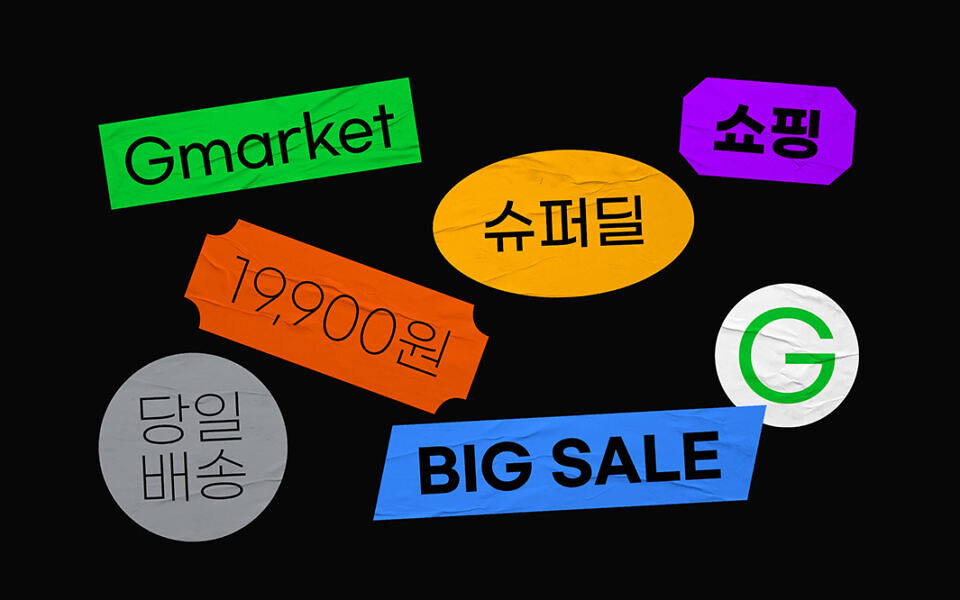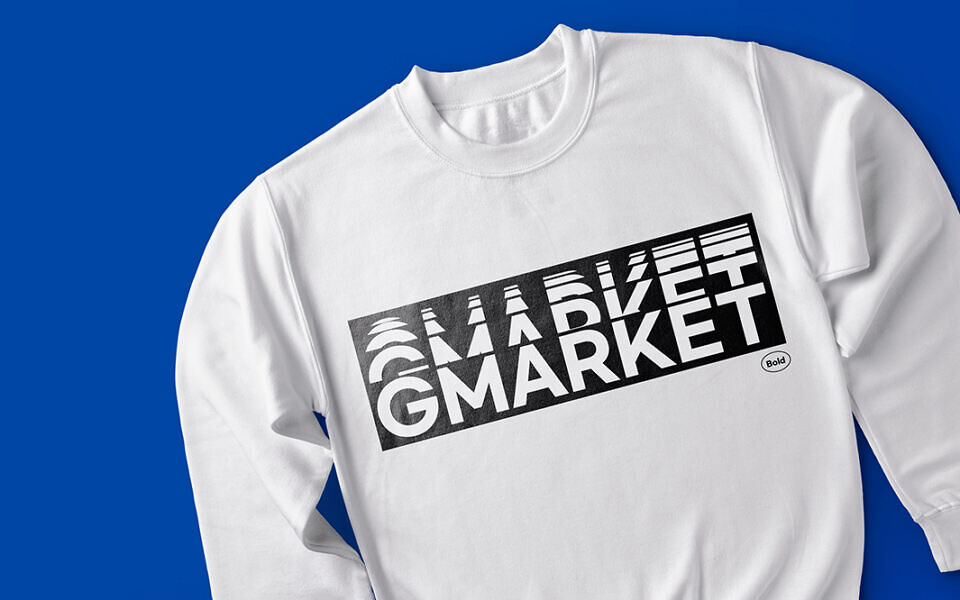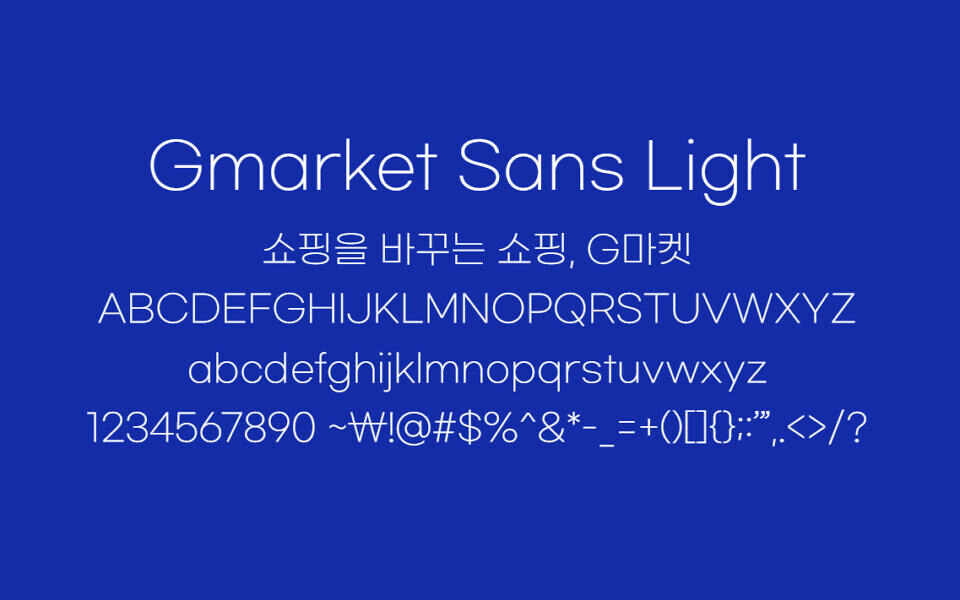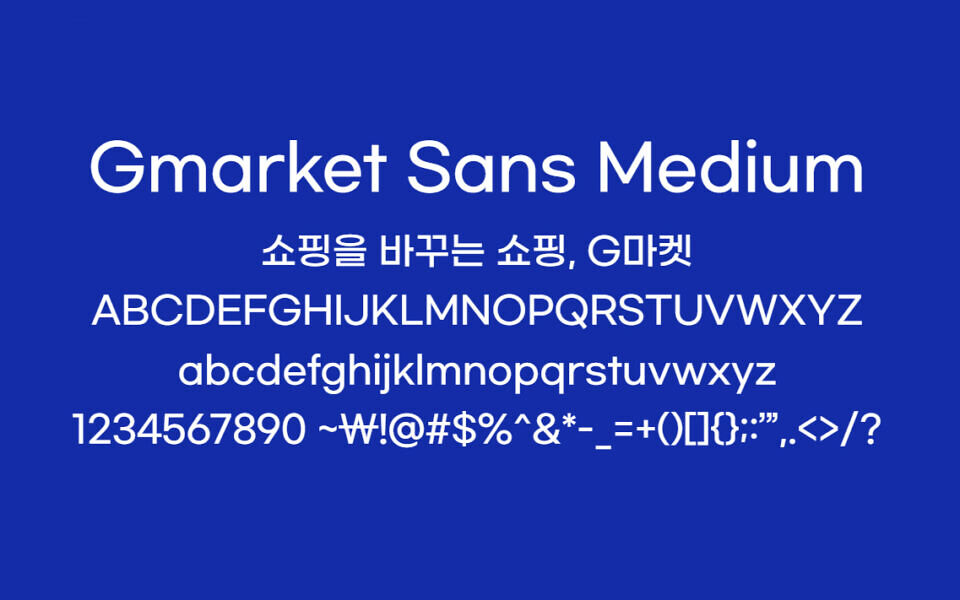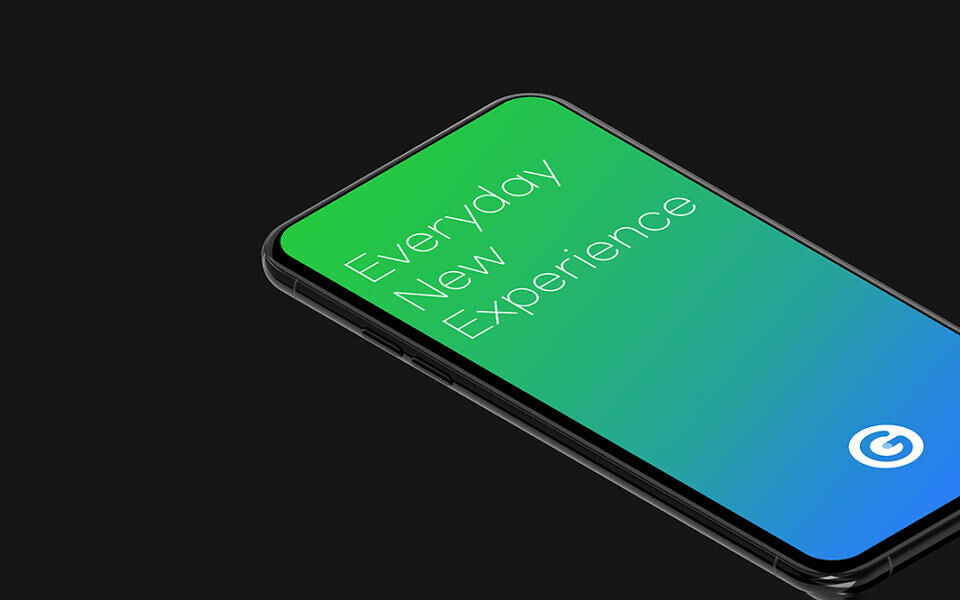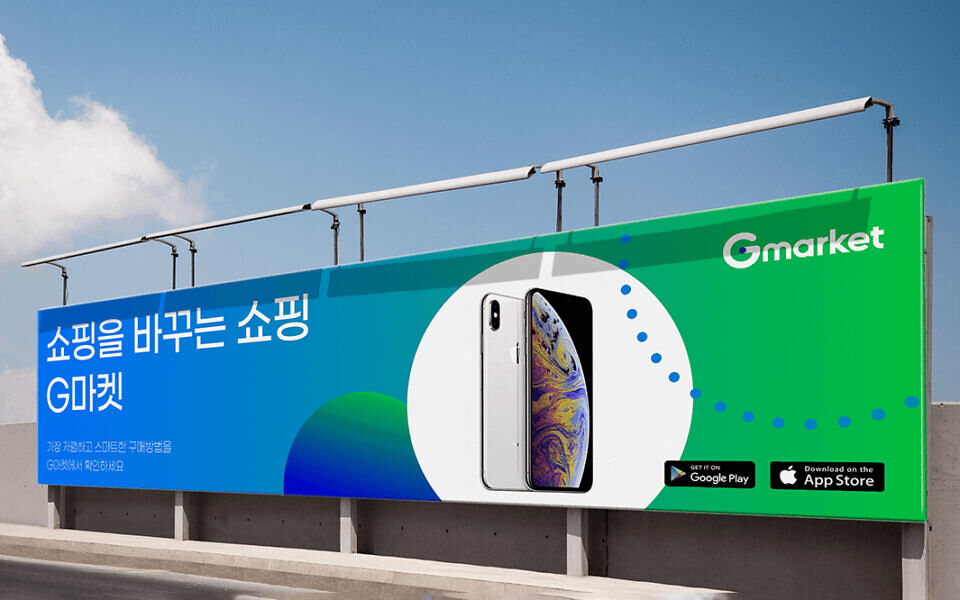
Gmarket Sans is a free geometric sans-serif font that embodies Gmarket’s brand identity with a modern, intuitive design. Featuring 11,172 Korean characters, 95 English letters, and 986 special characters, it offers three weights: Light, Medium, and Bold.
Its clean, linear forms and square-framed geometry ensure neat alignment and excellent readability. Ideal for print, web, and mobile, Gmarket Sans is versatile for commercial and personal projects like brochures, posters, and digital media, with an open license for unrestricted use.